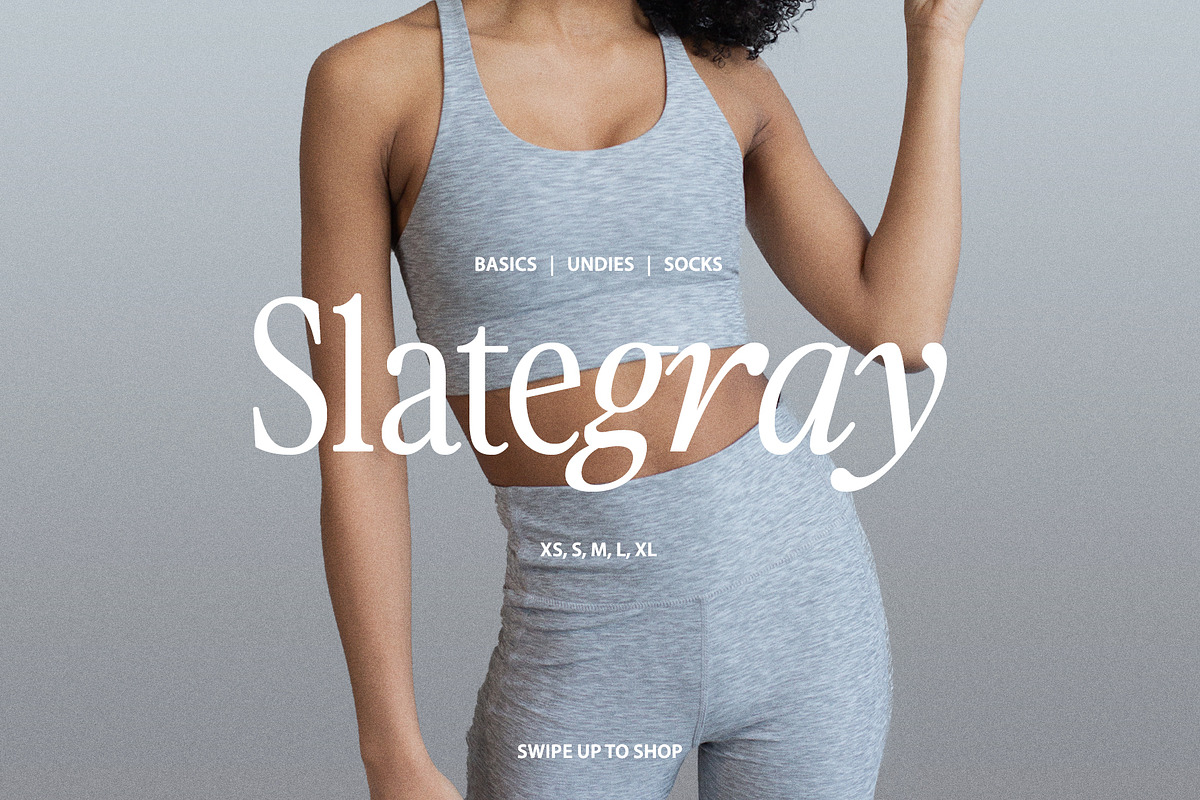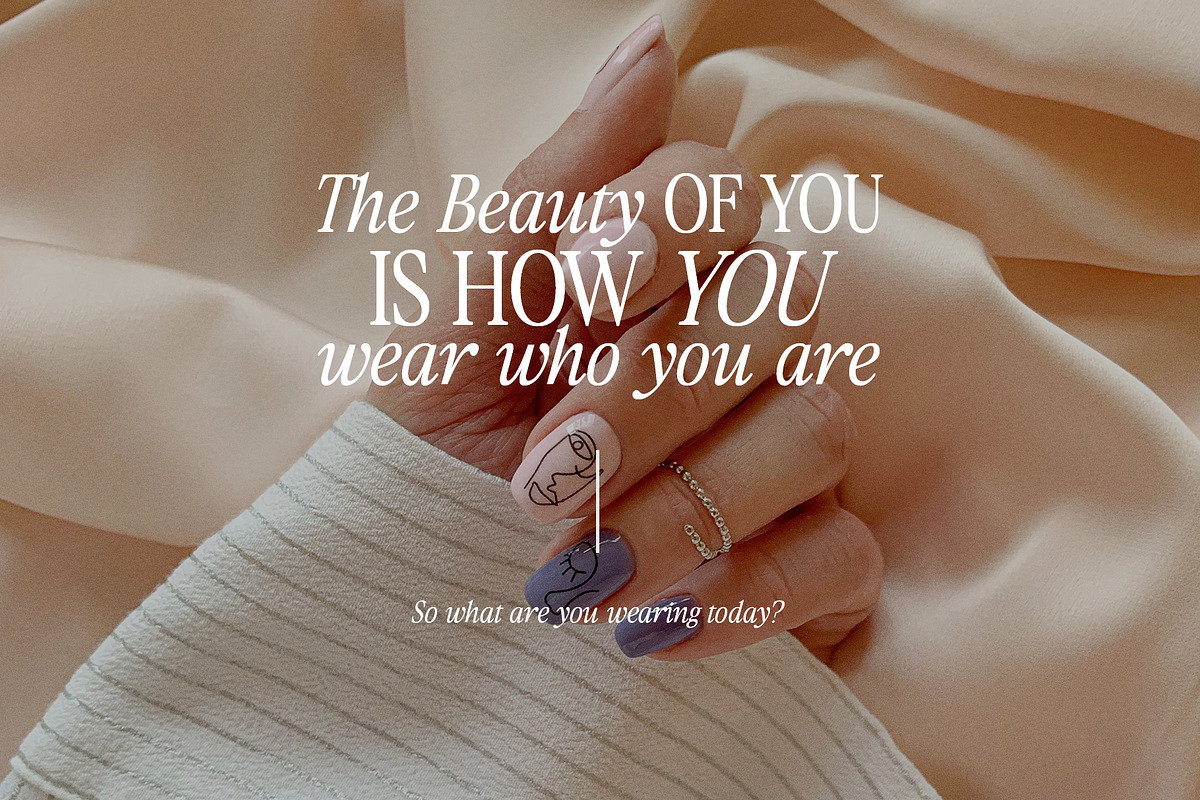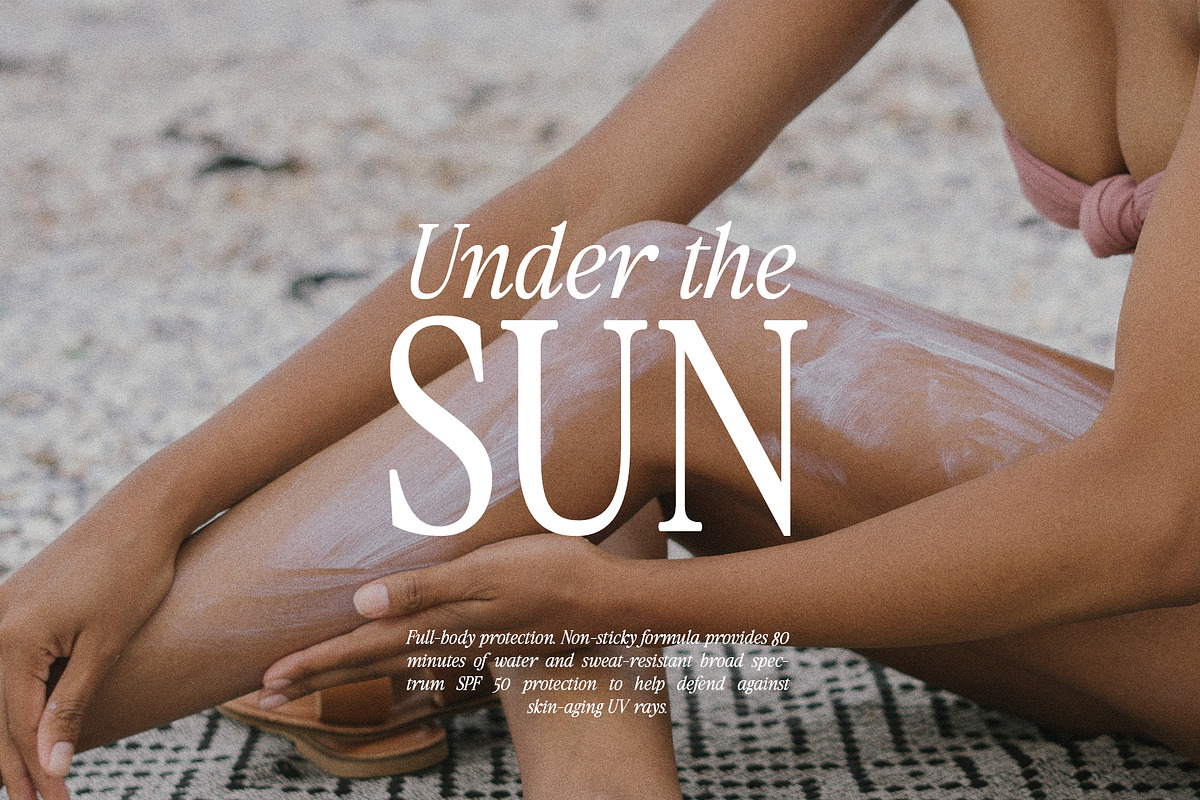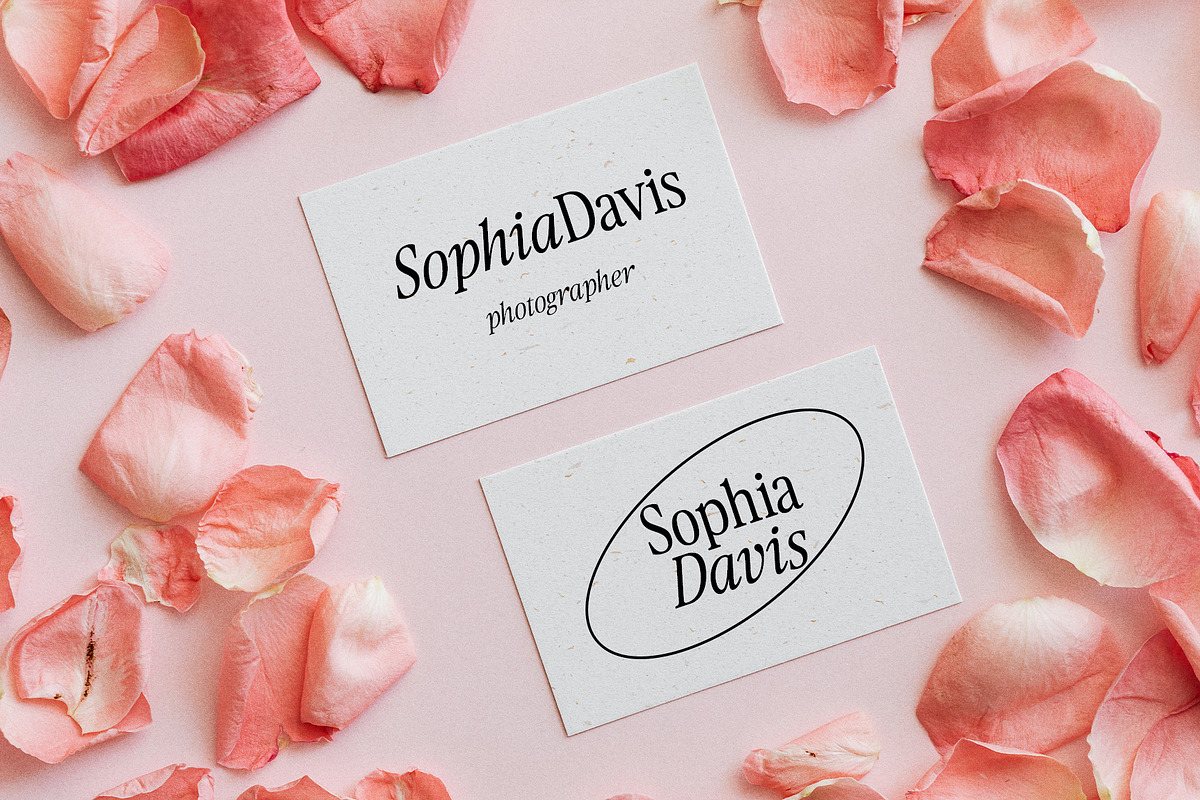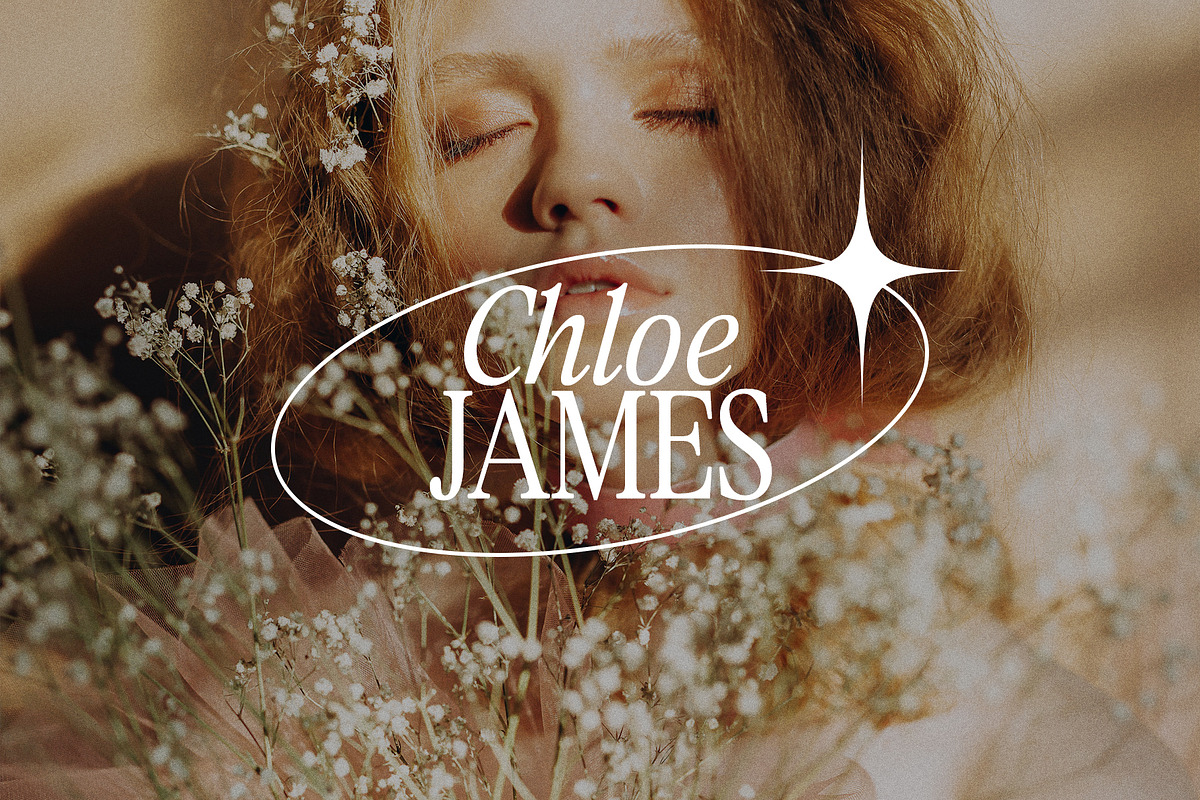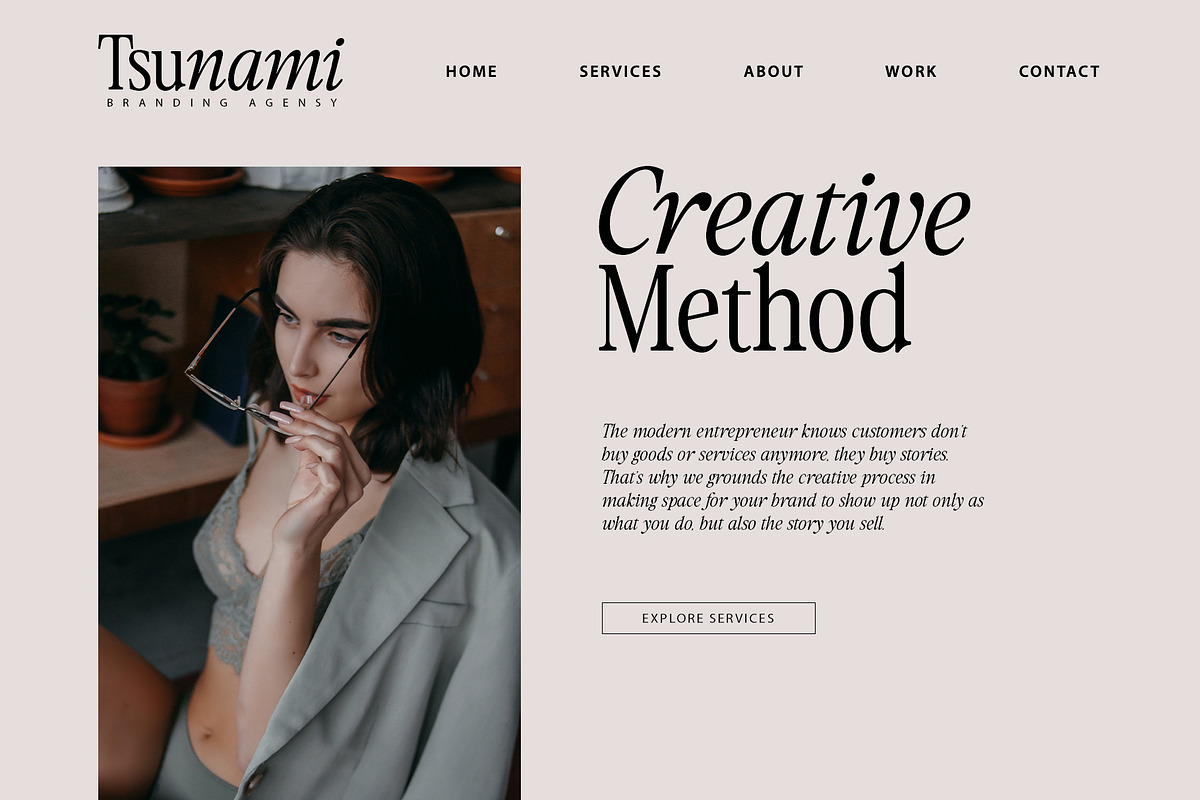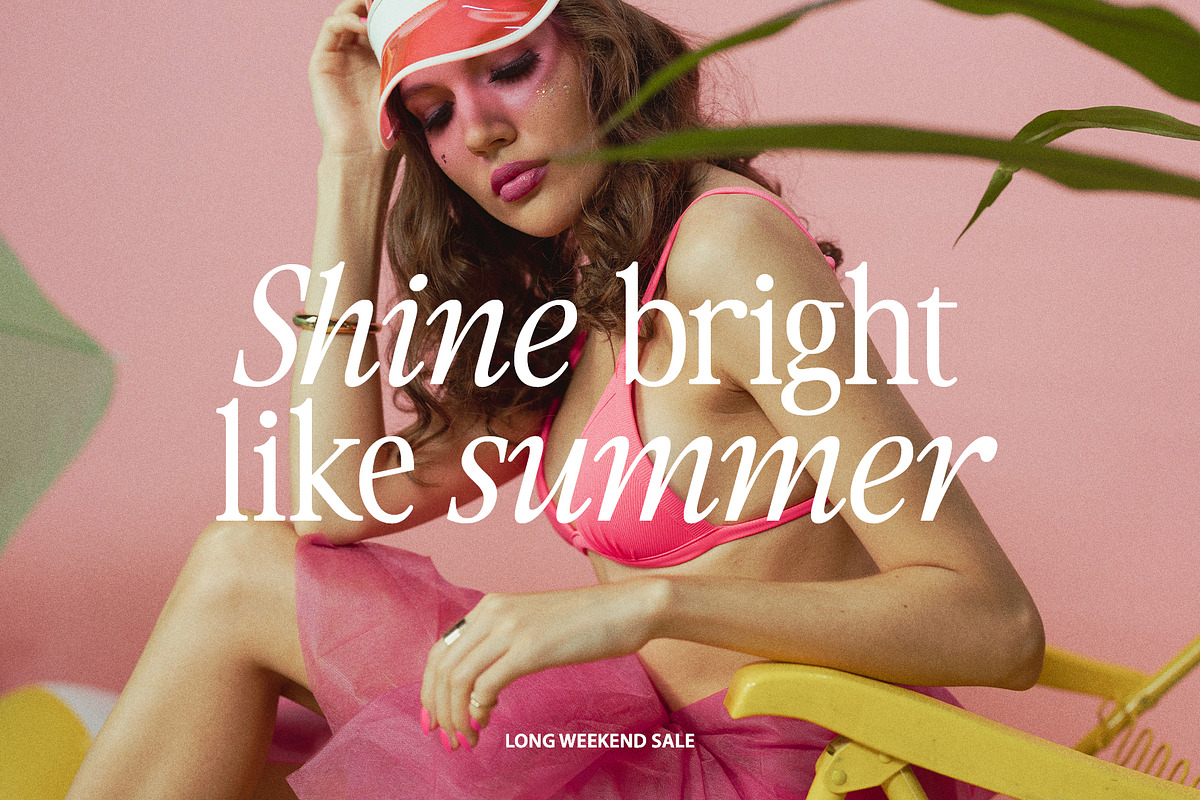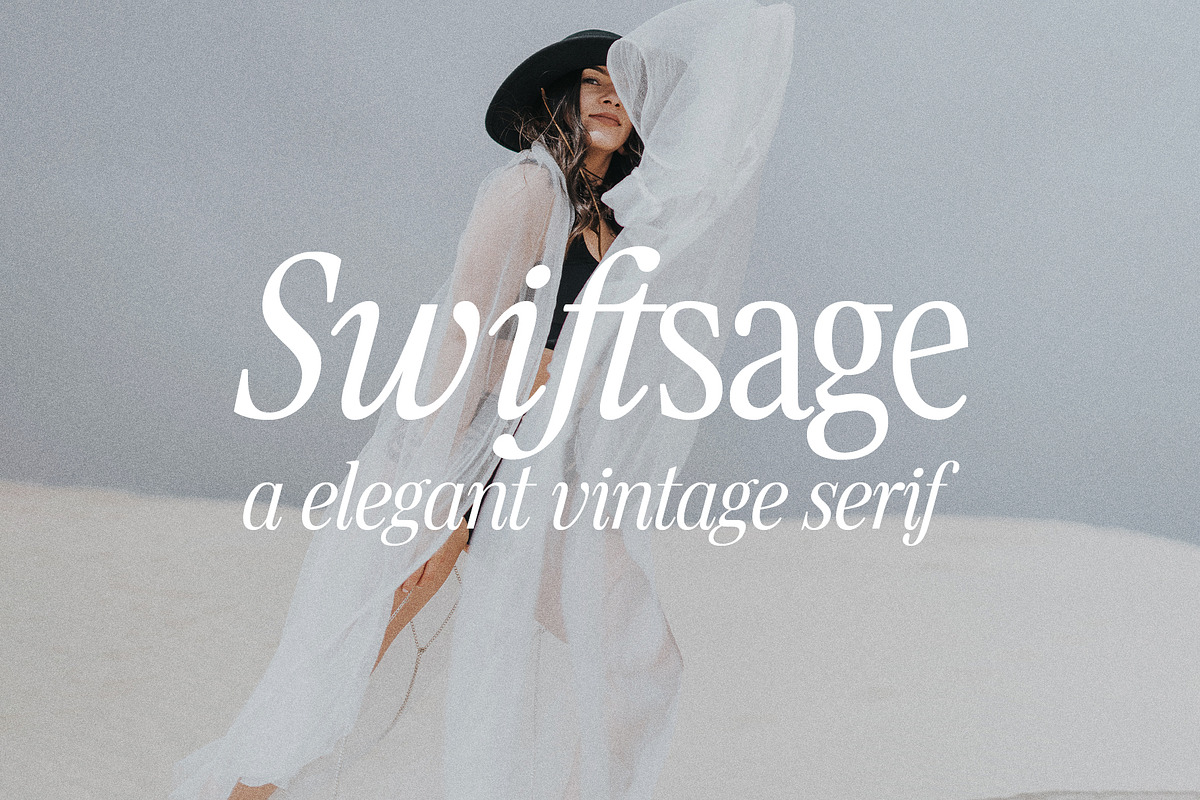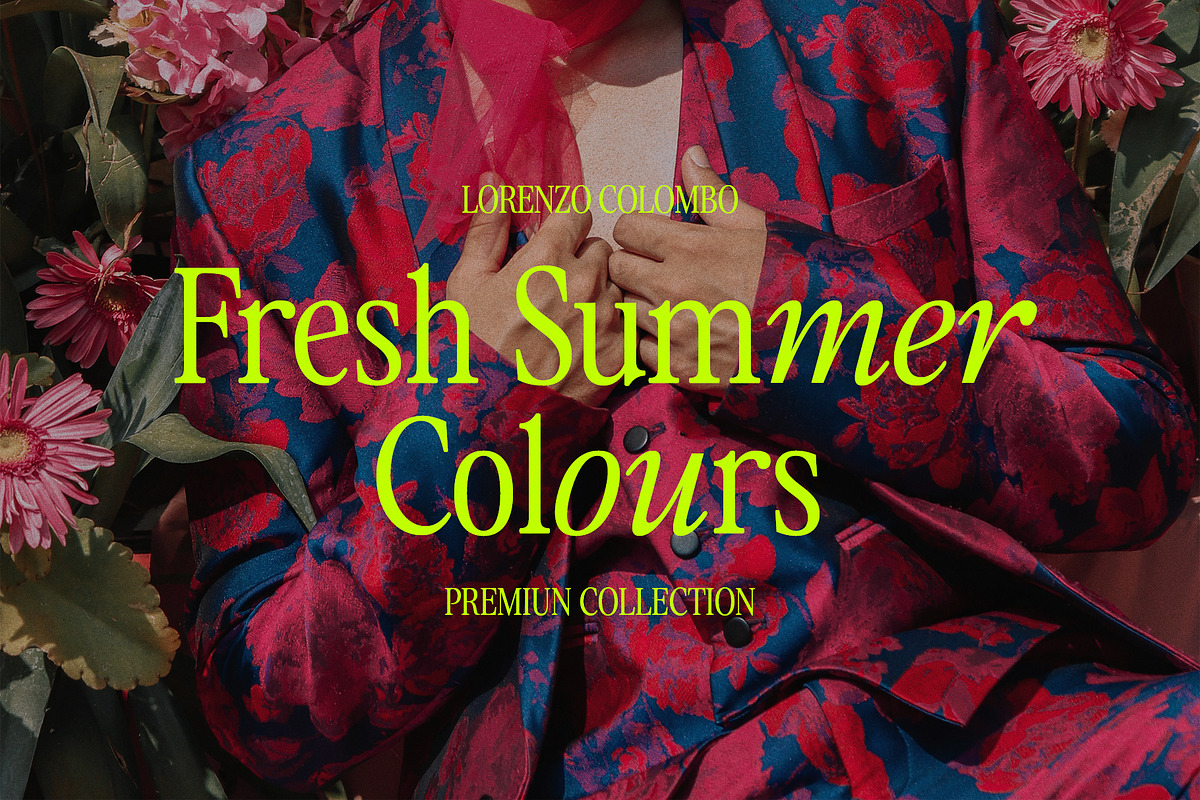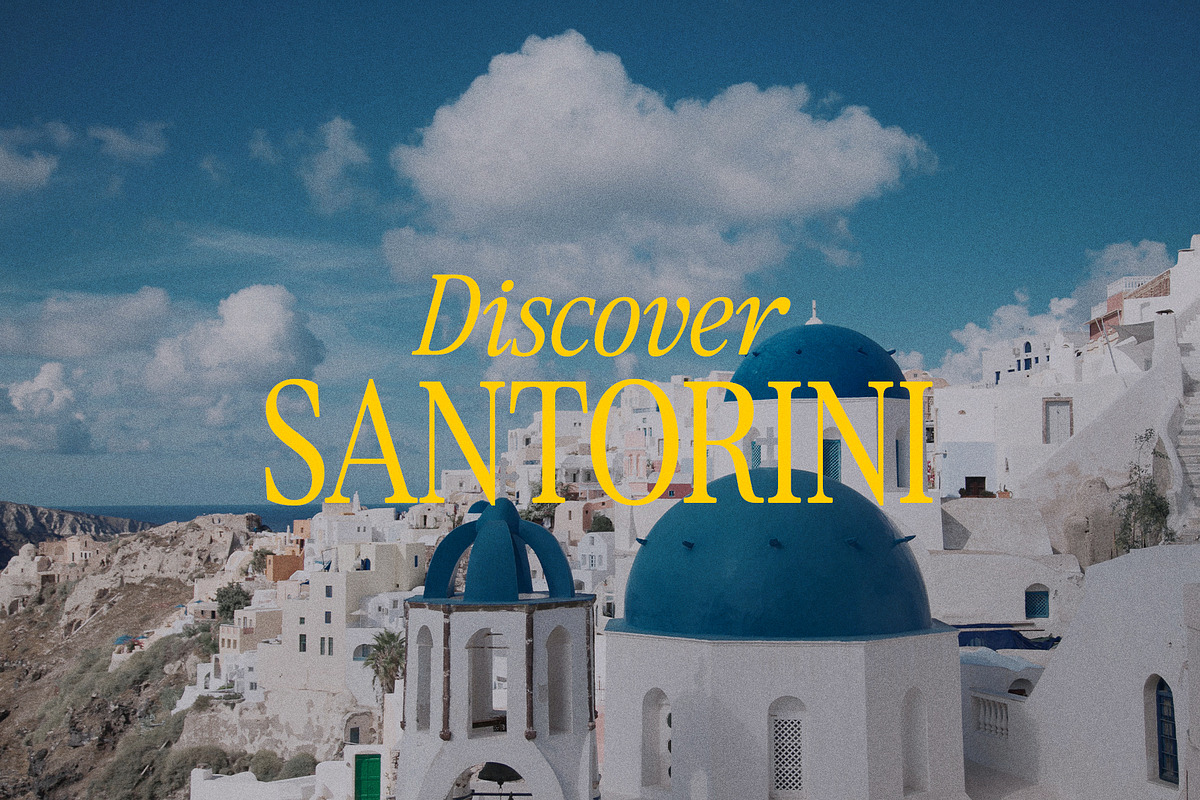
Swiftsage / Vintage Modern Serif
Swiftsage - a charming serif in retro style of the 80s and 90s with nostalgic notes! The dense structure will give an incredible retro vibe to your project.
Come in two versions, one of which is strict and straight, and the second is playful and inclined
Swiftsage Font Features:
- Full Set of standard alphabet and punctuation
- Language support: All European languages
- Multilingual Characters AÁĂÂÄÀĀĄÅÃÆBCĆČÇĊDÐĎĐEÉĚÊËĖÈĒĘẼFGĞĢĠḠHĦIIJÍÎÏİÌĪĮĨJKĶLĹĽĻŁMNŃŇŅÑ OÓÔÖÒŐŌØÕŒPÞQRŔŘŖSŚŠŞȘẞTŤŢȚUÚÛÜÙŰŪŲŮŨVWẂŴẄẀXYÝŶŸỲỸZŹŽŻ aáăâäàāąåãæbcćčçċdðďđeéěêëėèēęẽfgğģġḡhħiıíîïìijīįĩjȷkķlĺľļłmnńňņñoóôöòőōøõœpþ qrŕřŗsśšşșßtťţțuúûüùűūųůũvwẃŵẅẁxyýŷÿỳỹzźžż